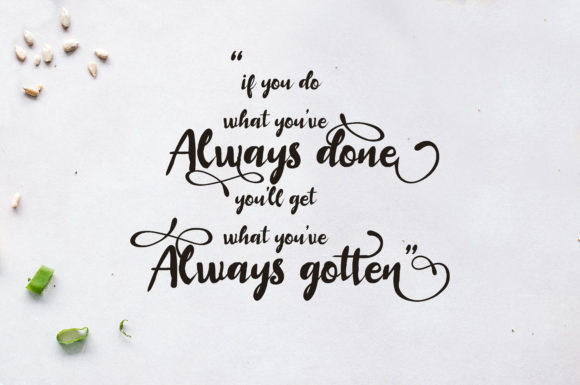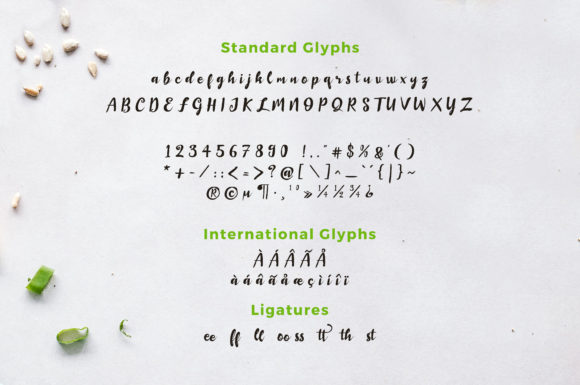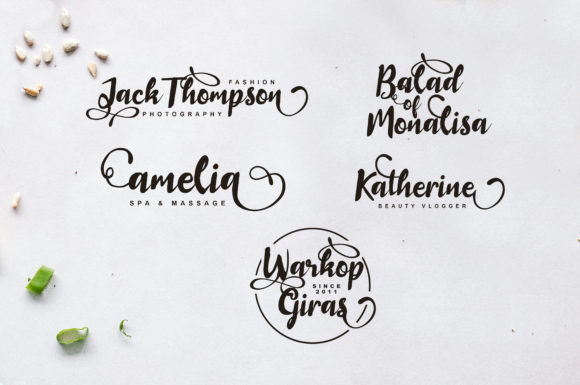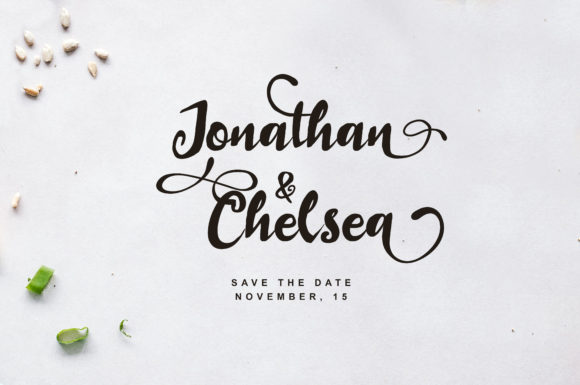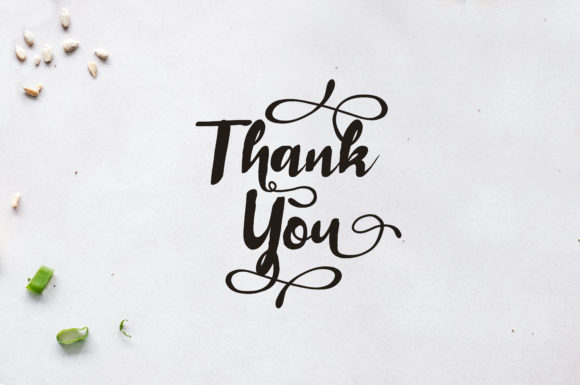
Baillando Font
About Baillando Font
The Baillando is a smooth handwritten font. It has bold letters with a natural writing style.
It can be used for various purposes such as: logos, magazines, cover albums, quotes, birthday cards, and much more.